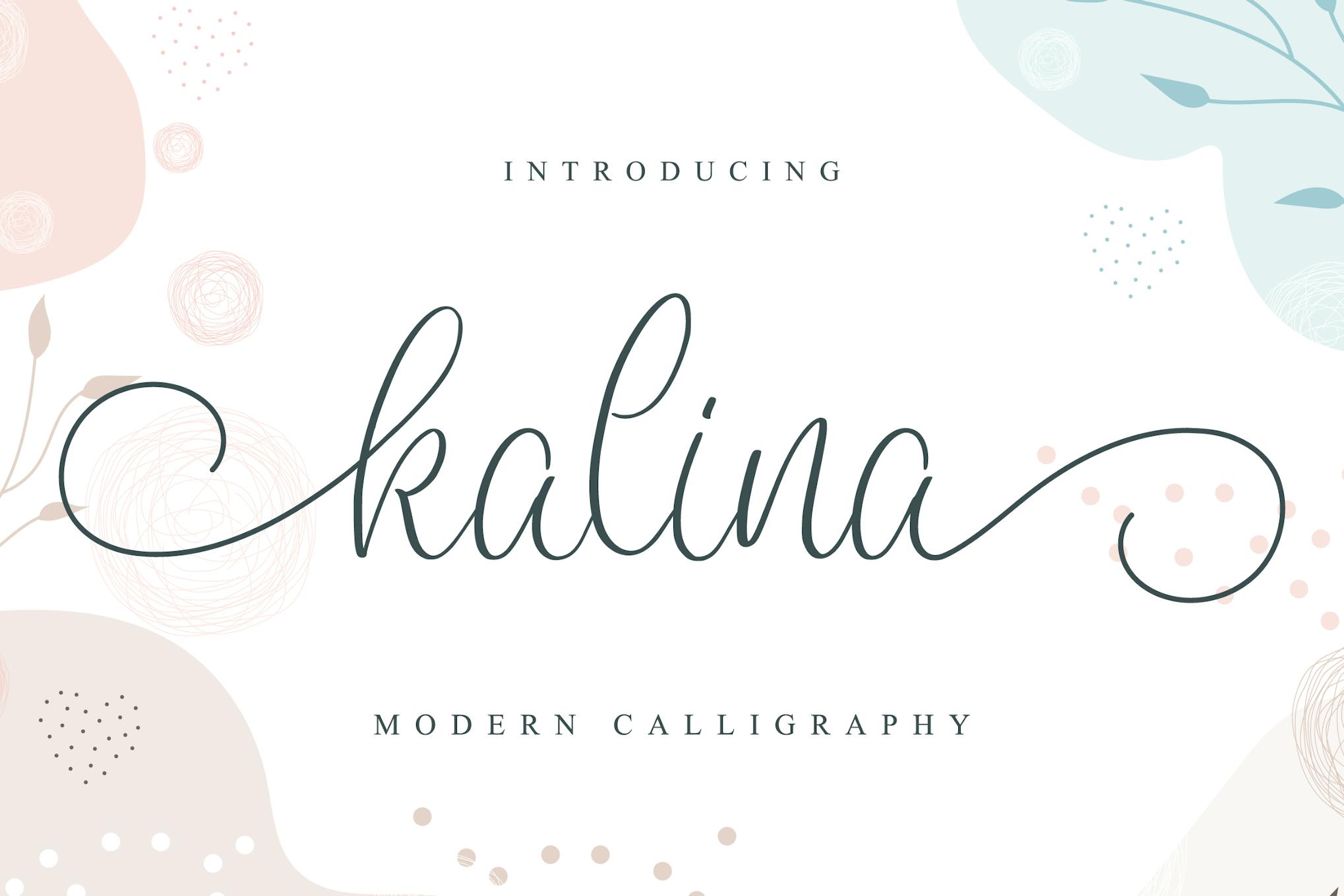
Kalina - Wedding Font
The Kalina - Wedding Font excels in delicate design applications including graceful wedding invitations, delicate bridal branding, refined ceremony logos, graceful product packaging, delicate business cards, refined portfolios, graceful greeting cards, delicate social media graphics, refined event signage, and graceful marketing materials. Its delicate script style makes it perfect for projects requiring graceful elegance that communicates refinement and establishes delicate brand positioning with audiences seeking graceful wedding experiences and refined sophistication.
What makes the Kalina - Wedding Font genuinely exciting is its exceptional ability to capture the delicate beauty and graceful elegance of refined weddings through delicately crafted letterforms. The font features flowing, graceful strokes with delicate flourishes and refined proportions that create a distinctly graceful appearance. Each character displays remarkable attention to delicate detail with graceful curves, refined connections, and delicate spacing that give text a beautifully graceful, hand-lettered quality. The font's delicate character and graceful rhythm create an atmosphere of refined elegance while maintaining delicate sophistication and wedding authenticity.
The Kalina - Wedding Font family typically includes regular weight with extensive character coverage, featuring uppercase and lowercase letters, numerals, punctuation marks, and international characters. The typeface often incorporates stylistic alternates, contextual ligatures, and graceful swashes that enhance its signature delicacy. These additional elements provide designers with creative flexibility to customize text appearance and achieve more natural-looking graceful handwriting that reflects the font's delicate and refined character.
This graceful signature font distinguishes itself through its remarkable balance of delicate charm and sophisticated elegance. Unlike harsh or heavy fonts that lack graceful appeal, Kalina - Wedding Font embraces the power of delicate design to create graceful connections with refined wedding audiences. The font's graceful character makes it essential for delicate wedding planners, refined brands, and graceful celebration businesses where creating graceful wedding experiences and delicate memories is fundamental to success in refined wedding markets.